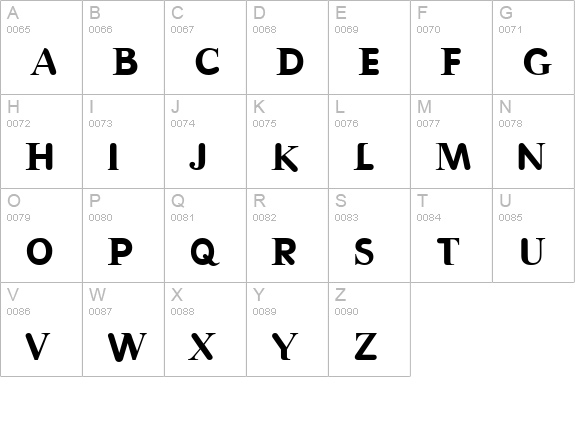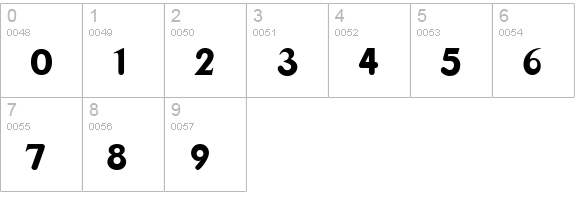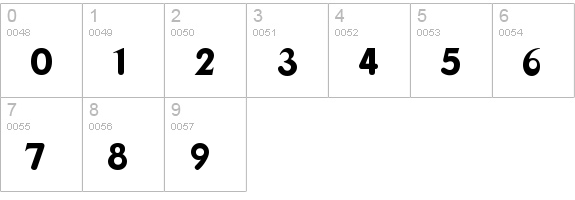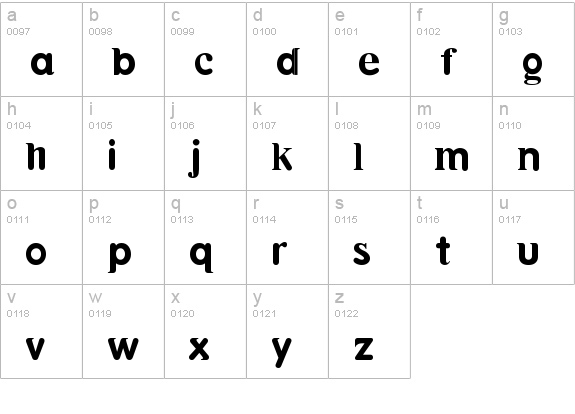
Halvar Font Details
Halvar font is a contemporary typeface that exudes elegance and sophistication. With its clean lines and modern curves, this font is perfect for any design project that requires a touch of class. Whether you're creating logos, branding materials, or promotional materials, Halvar font will elevate your work to the next level. What sets Halvar font apart is its versatility. It can effortlessly adapt to various design styles, from minimalist to bold and dynamic. This makes it a valuable asset for both professional designers and creatives looking to add a unique touch to their projects. But what makes Halvar font even more appealing is the fact that it is free. Yes, you read that right. This stunning typeface is freely available to download at FontsMarket.com. This means you can access this incredible font without spending a dime, making it accessible to designers of all levels. With its wide range of weights and styles, Halvar font offers endless possibilities for creative expression. Whether you prefer a light and airy look or a bold and impactful design, this font has got you covered. Its extensive character set further enhances its versatility, allowing you to create one-of-a-kind designs with ease. The attention to detail in Halvar font is truly remarkable. Every letter and glyph has been meticulously crafted to ensure a seamless and visually pleasing reading experience. The legibility of this font is top-notch, making it perfect for both print and digital applications. So why wait? Experience the beauty and versatility of Halvar font today. Take advantage of the fact that it is freely available to download at FontsMarket.com and add a touch of elegance to your design projects. With Halvar font, you'll be able to create stunning visuals that leave a lasting impression.